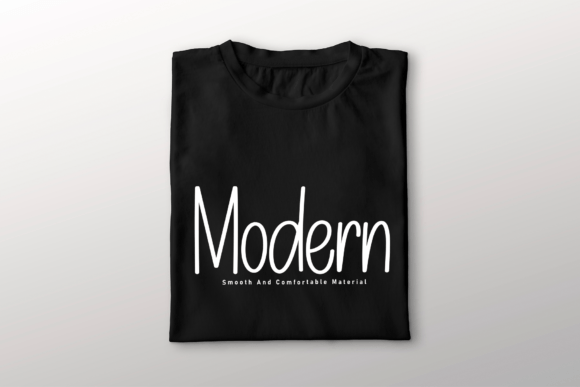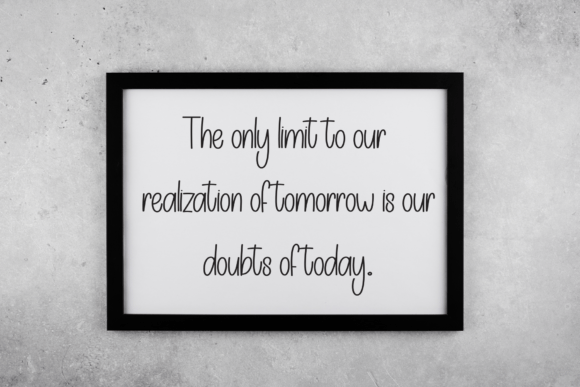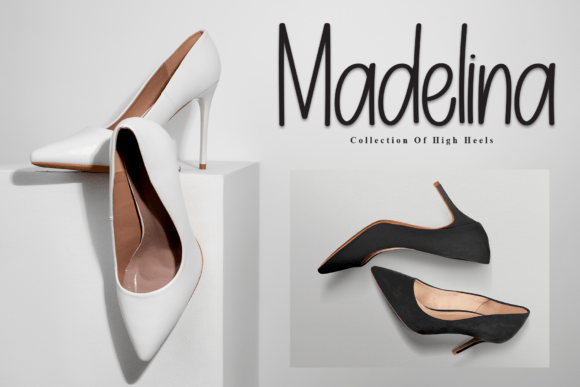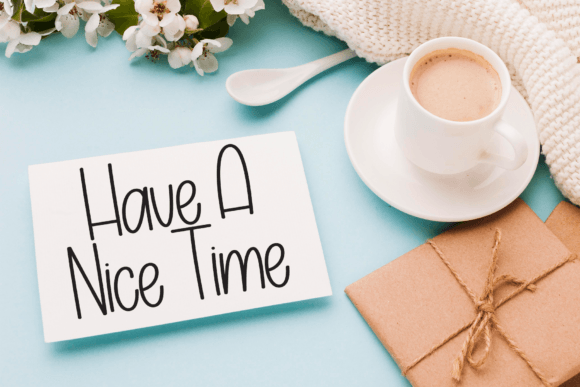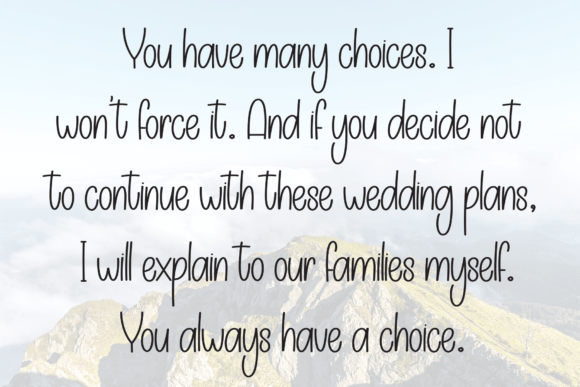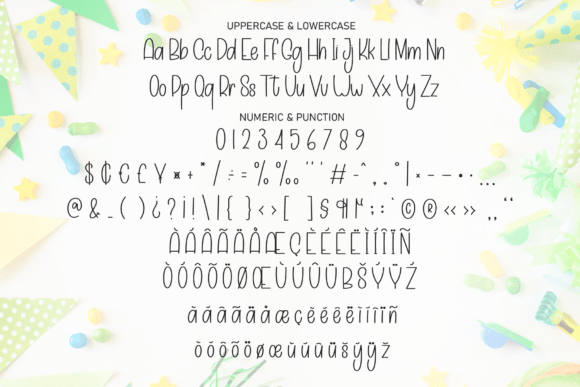
Introducing Happy Birthday Font: The Perfect Choice for Personal and Creative Projects
Are you looking for a font that can add a personal touch to your designs, invitations, and social media posts? Look no further than the Happy Birthday font, a casual handwritten font that captures a relaxed and friendly vibe with its natural, flowing strokes. In this article, we’ll explore the features and benefits of Happy Birthday font, and how it can bring an effortless, charming touch to any design.
What is Happy Birthday Font?
Happy Birthday font is a unique and charming typeface that is perfect for adding a personal touch to your designs. With its natural, flowing strokes, this font exudes a sense of warmth and authenticity that is hard to find in more traditional fonts. Whether you’re working on a personal project, creating social media graphics, or designing invitations, Happy Birthday font is the perfect choice.
Key Features of Happy Birthday Font
So, what makes Happy Birthday font so special? Here are just a few of its key features:
- Casual and Handwritten: Happy Birthday font has a casual, handwritten feel that is perfect for adding a personal touch to your designs.
- Natural and Flowing Strokes: The font’s natural, flowing strokes give it a relaxed and friendly vibe that is perfect for a wide range of design applications.
- Effortless and Charming: Happy Birthday font brings an effortless, charming touch to any design, making it perfect for personal projects, social media, and invitations.
- Easygoing Style: The font’s easygoing style adds warmth and authenticity to any design, making it perfect for designers and crafters who want to create unique and engaging content.
Benefits of Using Happy Birthday Font
So, why should you choose Happy Birthday font for your next design project? Here are just a few of the benefits of using this amazing font:
- Perfect for Personal Projects: Happy Birthday font is perfect for personal projects, such as creating custom birthday cards, invitations, and social media graphics.
- Great for Social Media: The font’s casual, handwritten feel makes it perfect for social media graphics, such as Instagram posts, Facebook updates, and Twitter headers.
- Ideal for Invitations: Happy Birthday font is ideal for creating custom invitations, such as birthday invitations, wedding invitations, and graduation invitations.
- Adds Warmth and Authenticity: The font’s easygoing style adds warmth and authenticity to any design, making it perfect for designers and crafters who want to create unique and engaging content.
In conclusion, Happy Birthday font is a unique and charming typeface that is perfect for adding a personal touch to your designs. With its natural, flowing strokes and easygoing style, this font brings an effortless, charming touch to any design. Whether you’re working on a personal project, creating social media graphics, or designing invitations, Happy Birthday font is the perfect choice. So why wait? Download Happy Birthday font today and start creating unique and engaging content that stands out from the crowd!